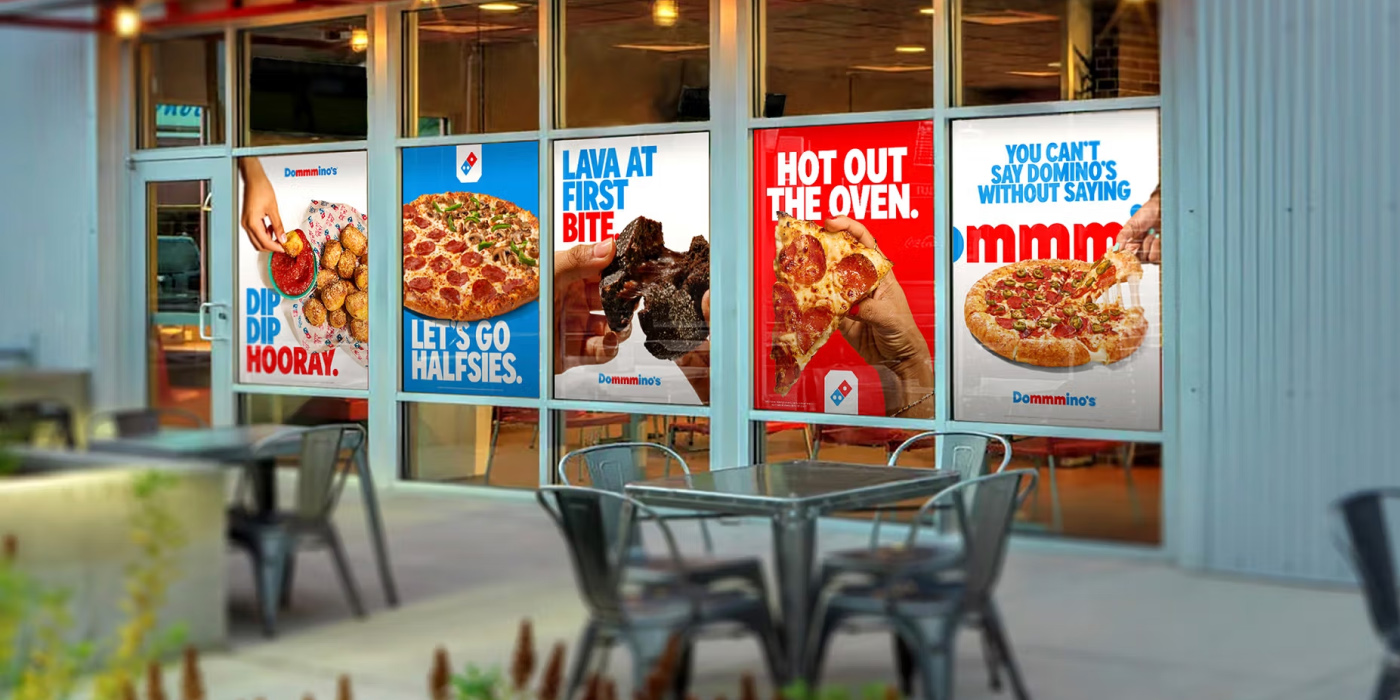
Domino’s, the world’s largest pizza company, recently launched its first brand refresh in thirteen years. This initial change was a response to a honest realization: the brand had become known as a technology company that happens to sell pizza. Why? Because of their continuous investment on online ordering logistics, a plan that allowed them to become an indistry leader, but shifted the focus away from the product itself. The agency WorkInProgress stepped in to lead Domino’s rebrand, which was sparked by the new Hungry for MORE strategy. The main communicational need was clear: they had to make every aspect of the brand feel as craveable as the pizza. The goal was to bring the focus back to delivering the most delicious products and experience to both current and future pizza lovers.
A New Visual and Audio Identity
Domino’s rebrand blends heritage with a more modern and playful look and sound. Instead of relying on a traditional tagline, the team created a unique audio concept they call a Cravemark. Their new jingle Dommmino’s™, literally bakes the idea of craveability right into the brand’s name. It is designed to be memorable and fun to mimic. The new audio strategy is anchored by the recognizable voice of singer-songwriter Shaboozey.
There’s a long story of iconic campaigns led by Domino’s, a brand that been consistent on keeping their communication directly anchored to powerful insights from their audience, making them feel like a down to earth business. One example is the Paving for Pizza campaign launched in 2018 under a clear premise: bad roads can ruin a customer’s pizza during the drive home. They ran an ethically focused initiative where the company offered grants to municipalities across the United States to fix potholes and repair damaged roads.
For this rebrand, the touchpoints elements also received a fresh update. The packaging is perhaps the most important new element. The new suite of boxes features a more bright and simplified design overall, embodying the brand’s memorable logo. Keeping the signature red and blue colors in brighter hues, the boxes recall the tiles of a traditional dominoes game, which was the seed for the development of the original visual identity of the brand.
The Custom Typeface: Domino’s Sans
A standout detail of Domino’s rebrand is the custom typeface, Domino’s Sans. The font is bolder, thicker, and doughier. The development of Domino’s Sans serves an important unifying purpose. As Domino’s Executive VP–Global Chief Marketing Officer Kate Trumbull noted, the overarching goal was to unify their look, feel, and sound. The new font and colors are simple and bold, acting as unifiers that are applied consistently everywhere the brand shows up and ensures that any new product launch will have a consistent, instantly recognizable treatment.
Domino’s: A Global Pizza Giant
Domino’s is an instantly recognizable name globally. It began with humble beginnings in 1960. Today, it stands as the largest pizza company in the world. They operate a global enterprise of more than 21,500 stores in over 90 markets. The brand is known for its rich history of innovation in both the pizza and delivery industries. The company continues to invest heavily in its digital presence. Over 85% of U.S. retail sales now come through digital channels. This solidifies its position as a global leader in its segment.